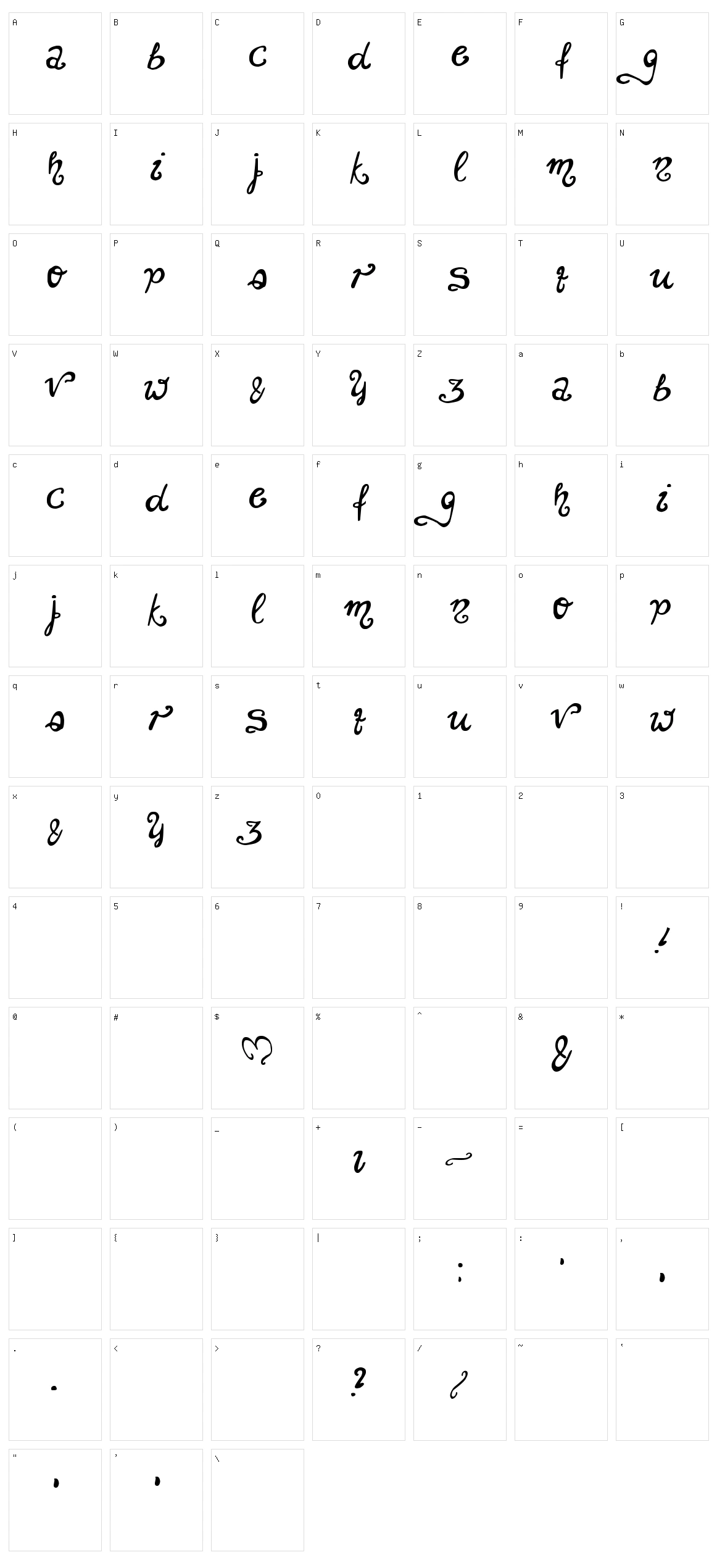
The free font Unchanged Thoughts is carefully designed by Lars Manenschijn, showcasing a thoughtful balance of creativity and usability and falls under the Script font style. When you download the ZIP file, it contains only 10.79 KB of font files, making it lightweight and quick to download. Please review the license details below to understand permitted usage and distribution rights. If license information is not available, we recommend using this font for personal projects only or contacting the author directly for commercial usage permissions.